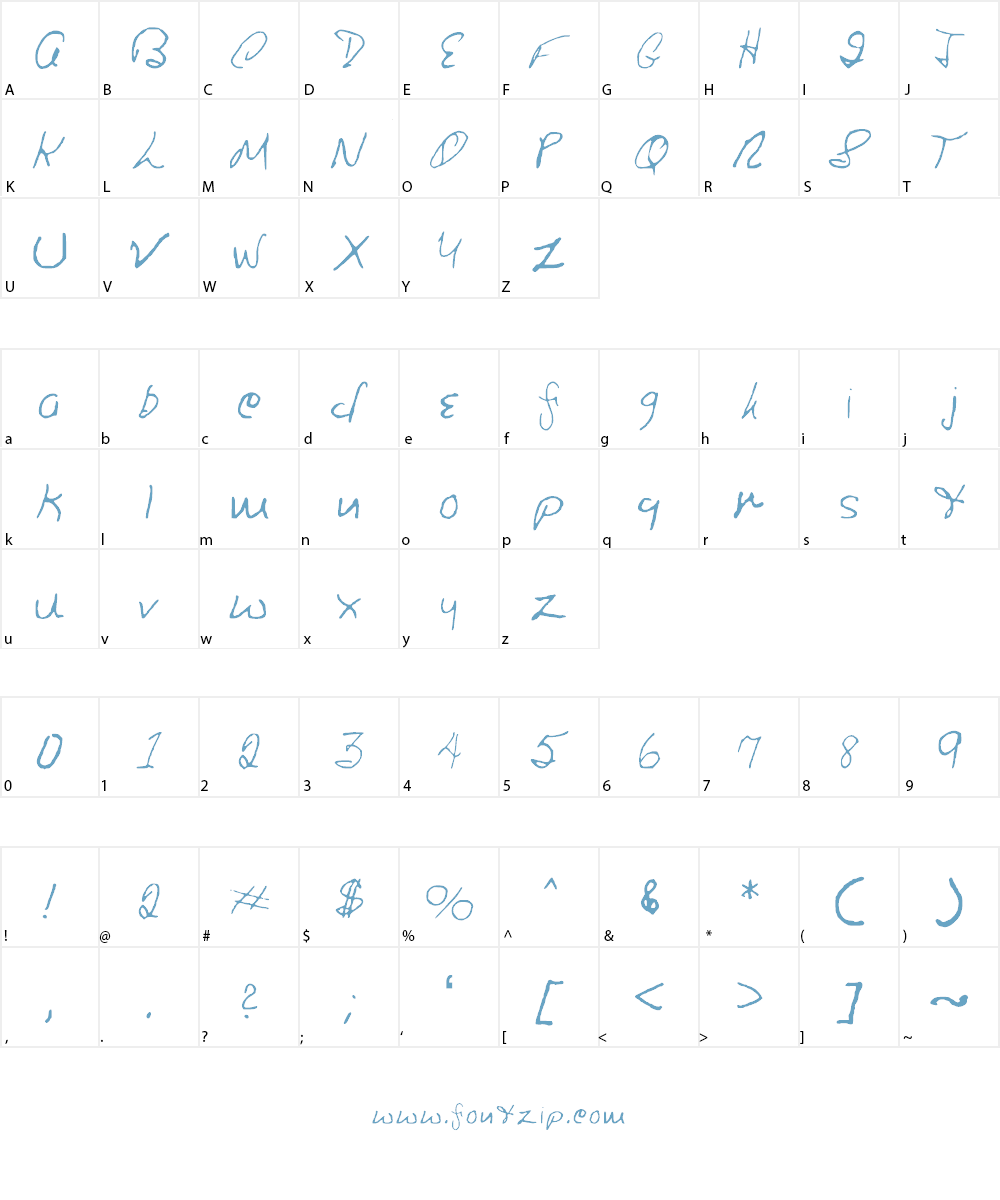
A unique, somewhat kooky handwritten font that doesn't take itself too seriously. Letters vary somewhat, both in ink thickness and in slant, as if the writer was a bit demented and high on speed---but still very legible. (Think Jack Kerouac or Hunter Thompson.) Does not include accents, but includes "smart" quotes and Euro sign. More-or-less finished. Inspired by the distinctive script of pulp author Ron Hubbard, whence the name.